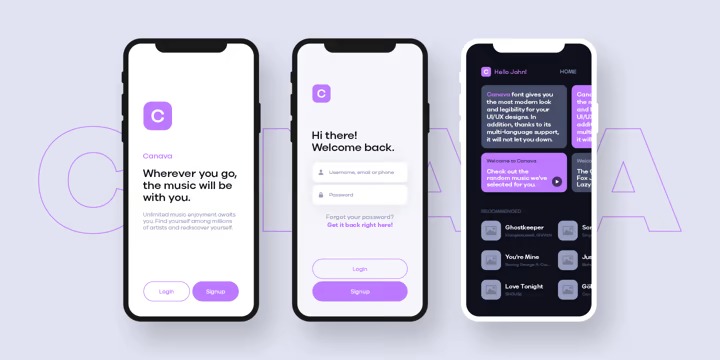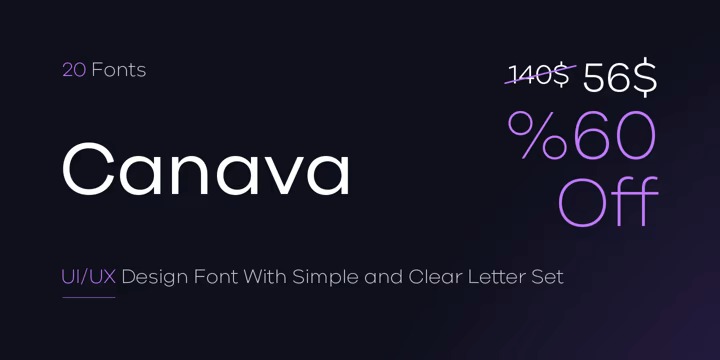
Canava Font
Canava Sans Serif Font
This font is a ten weight, 20-font typeface designed to be an easy go-to for branding, web, and print design projects. Its clean and plain appearance ensures high readability. This font increases compatibility for your UI/UX designs and makes your designs more understandable. It offers you support in many languages.
Canava’s fluid functionality is achieved through multiple OpenType features such as case sensitive forms, contextual and stylistic alternatives. The standard set of numbers includes tabular figures and symbols, top and bottom numbers, numerators and denominators, as well as fractions.